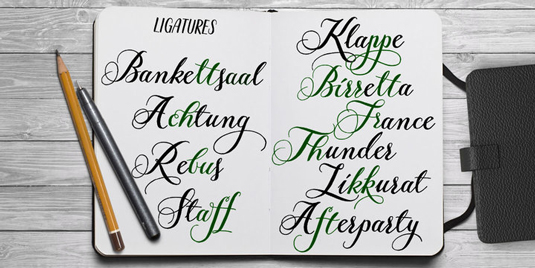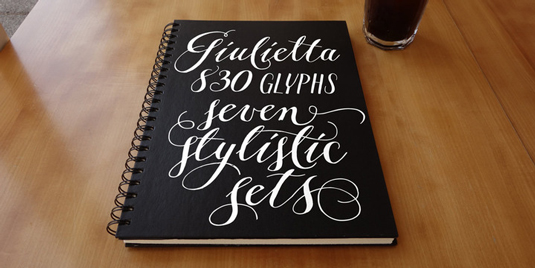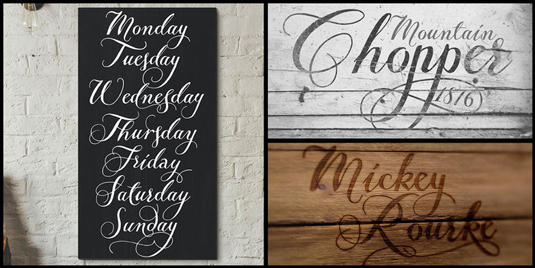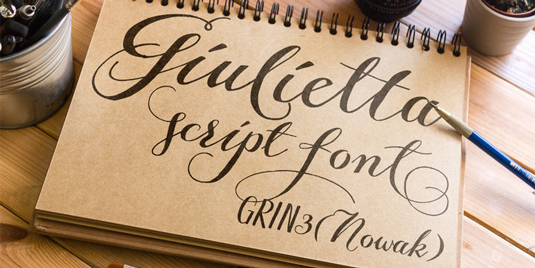
Font of the day: Giulietta
Giulietta by Bartek Nowak
Today's typeface of choice is Giulietta, a handwritten, fully connected script with ligatures and contextual alternates to help with flow and readability. Created by Polish font designer Bartek Nowak, Giulietta is perfectly suited to invitations, greeting cards, posters, advertising, weddings, books, menus and more.